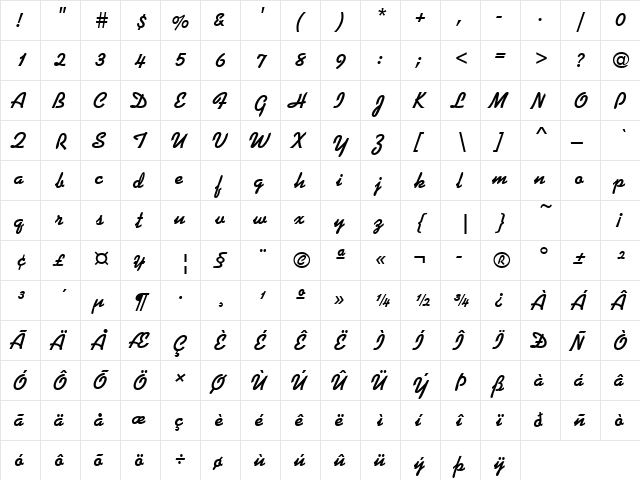
KaufmannJoiDBol Regular Font Preview
KaufmannJoiDBol Regular
Design Context for KaufmannJoiDBol Typeface
KaufmannJoiDBol is a composed and adaptable typeface that performs quietly and consistently across a wide range of design contexts.